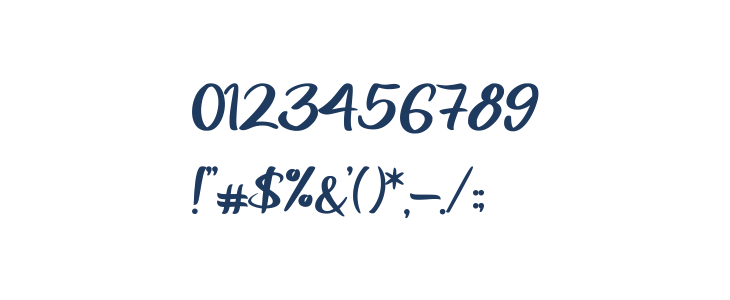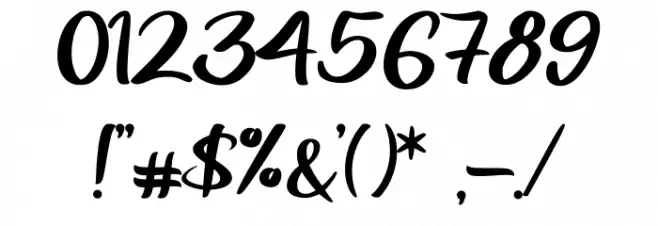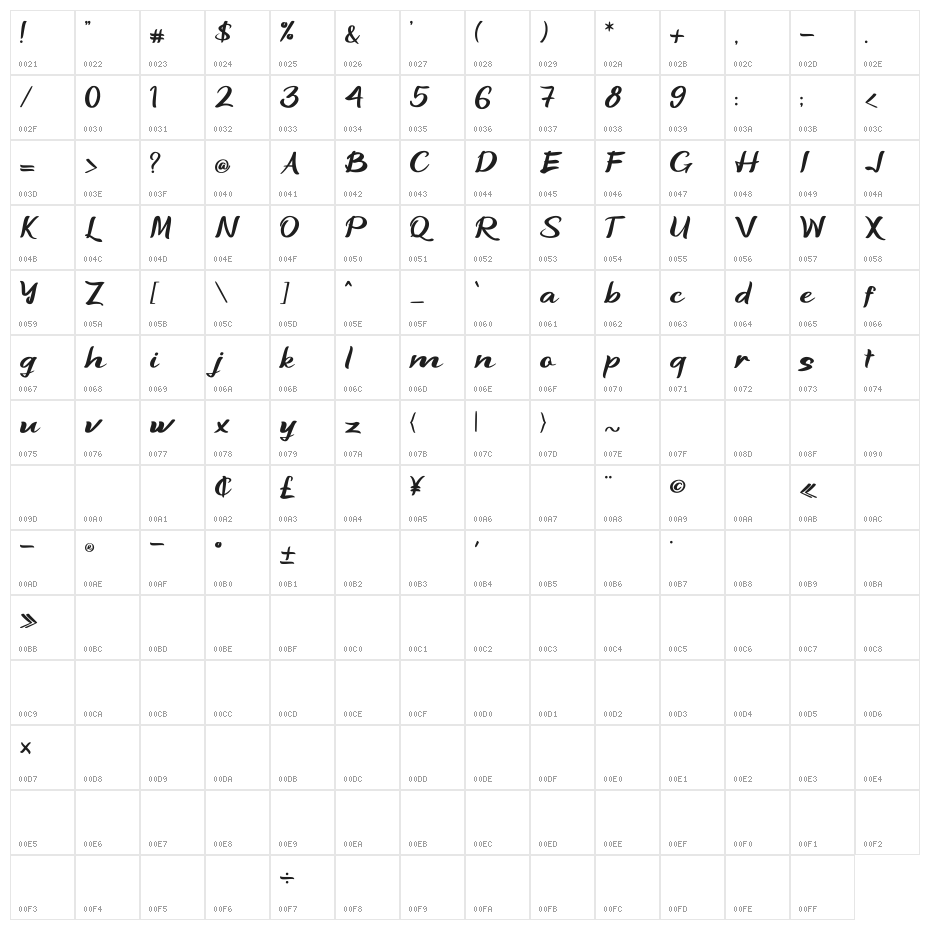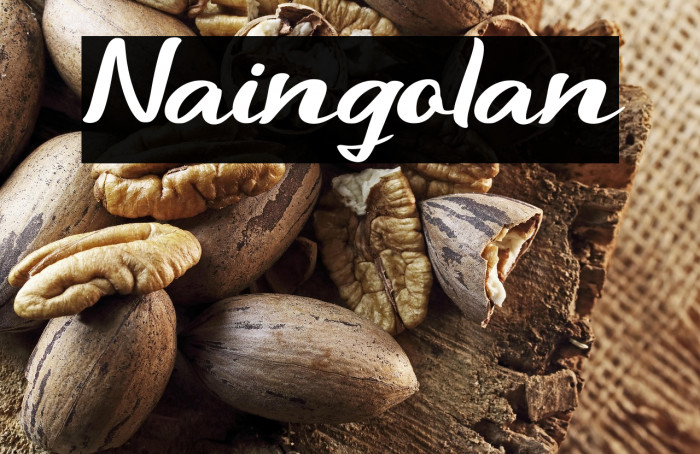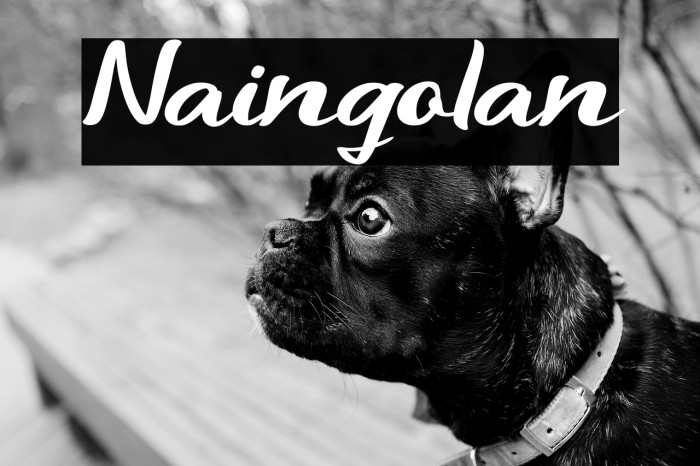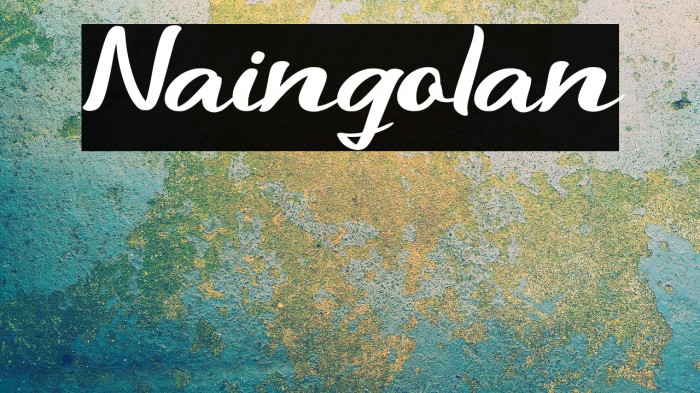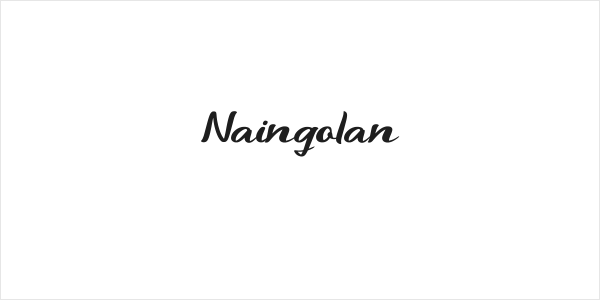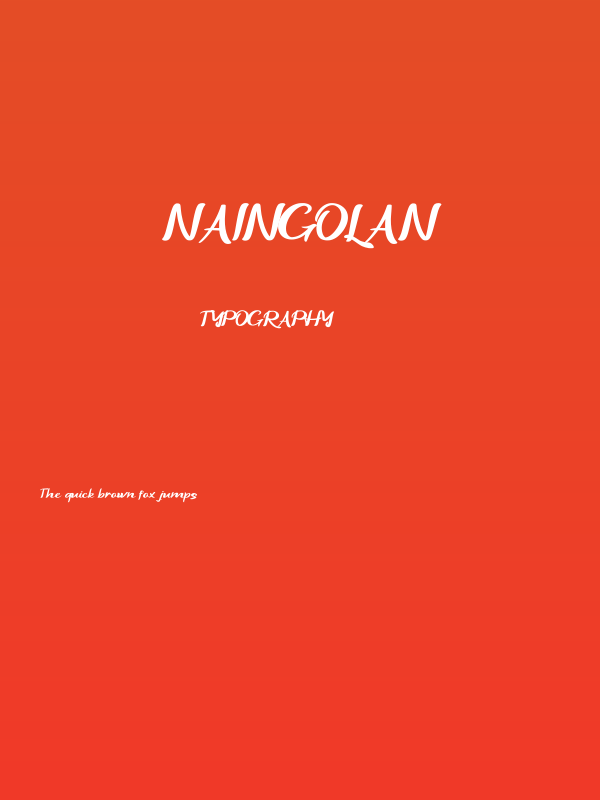
Naingolan Font
Naingolan Description
This font exhibits a dynamic and fluid script style, characterized by its elegant and flowing letterforms. The strokes are smooth and connected, giving it a handwritten appearance that is both sophisticated and approachable. The uppercase letters are bold and slightly slanted, while the lowercase letters maintain a consistent flow with subtle variations in stroke width. The numerals and special characters are crafted with the same attention to detail, ensuring a cohesive look across all characters. This font's design is perfect for adding a personal touch to any project, making it ideal for creative and expressive applications.